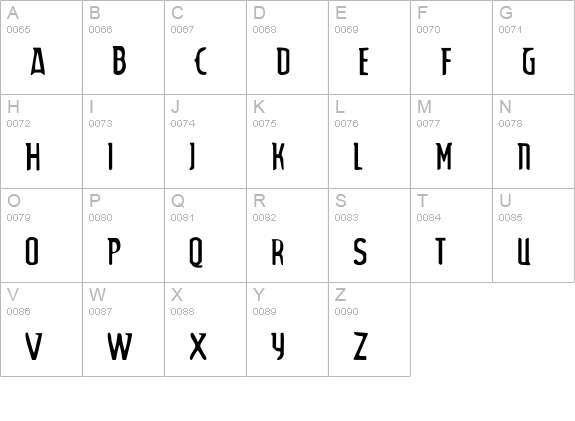
Lupinus Font Details
Lupinus font is a stylish and modern typeface that is sure to make your designs stand out. With its clean lines and elegant curves, Lupinus is perfect for a wide range of design projects, from branding to web design. This versatile font is both professional and eye-catching, making it a great choice for any project. One of the best things about Lupinus font is that it is completely free to download. You can easily get your hands on this amazing font at FontsMarket.com, where you'll find a wide selection of other high-quality fonts as well. Don't miss out on this opportunity to enhance your designs with Lupinus font today!